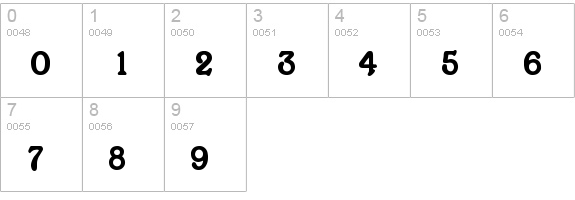
Salina Regular Font Details
Salina Regular is the standard, neutral variant in the Salina typeface family \xE2\x80\x94 well suited to general body text, paragraphs, and standard typographic work.
Introducing Salina Regular, a stunning typeface that effortlessly blends elegance with modernity. This font is the epitome of versatility, making it perfect for a wide range of design projects, from branding and advertising to editorial and web design. With its clean lines and balanced proportions, Salina Regular exudes a sense of sophistication and refinement. Its timeless aesthetic is complemented by a subtle touch of uniqueness, making it stand out from the crowd. Whether used for headlines, body text, or even logos, this font adds an air of professionalism to any composition. But what truly sets Salina Regular apart is its accessibility. This font is not only visually captivating, but it is also freely available to download at FontsMarket.com. Now, designers of all levels can take advantage of this exceptional typeface without any financial constraints. This makes Salina Regular a valuable asset for students, freelancers, and established professionals alike. Furthermore, Salina Regular offers an extensive character set, including a variety of ligatures and alternate glyphs, allowing for endless creative possibilities. The font is also compatible with both Mac and PC, ensuring a seamless integration into any design workflow. In conclusion, Salina Regular is a font that not only captivates with its timeless elegance but also empowers designers by being freely available to download at FontsMarket.com. With its versatility, accessibility, and exceptional attention to detail, Salina Regular is a must-have addition to any designer's toolkit.